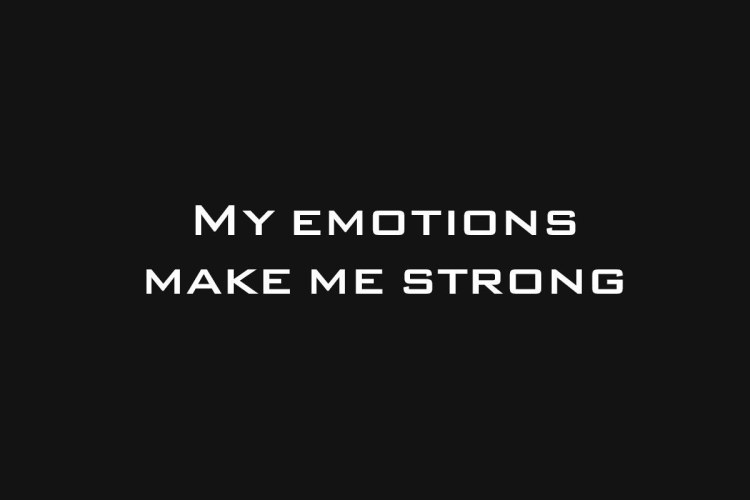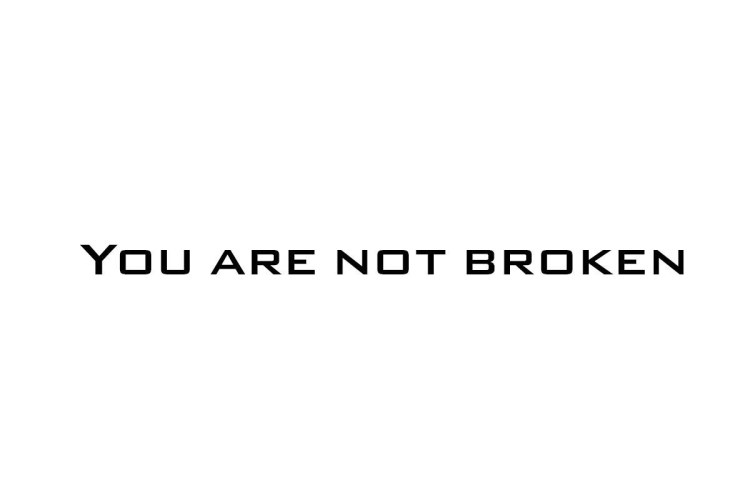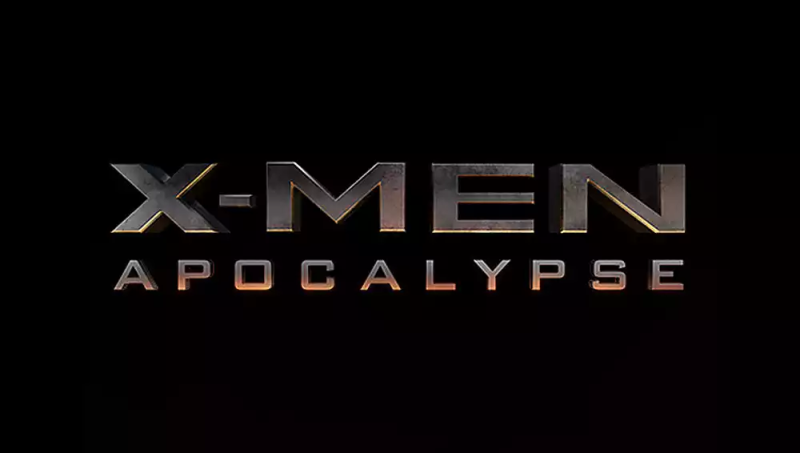
X-Men Font
The X-Men font was explicitly created for the iconic superhero series, and it features a bold and dynamic texture that perfectly captures the world of mutants. The font’s sharp lines and angles showcase power and energy, giving the X-Men characters an extraordinary appearance as superheroes.
Not only is the X-Men font used in posters, but it is also easily merged into different kinds of media, which helps develop a powerful brand for the franchise and completely submerges the audience into the world of mutants and dangers.
The font showcased in the “X-Men: Apocalypse” poster title is Bank Gothic, which is thematic for the film’s plot line. Its robust and harsh-looking design accentuates the imminent big battles and life-threatening incidents, a distinctive feature of the X-Men universe. The bold lettering of Bank Gothic becomes the visual beacon that invites spectators into the gripping mutant and superhero world, where every battle breaks a new record.
Furthermore, the constant use of Bank Gothic in all the promotional materials and merchandising highlights its connection to the X-Men Universe. Whether in comics, merchandise or digital platforms, Bank Gothic stamps itself as a unifying symbol, drawing people together worldwide. Its individuality replicates the X-Men logo and reflects the brand’s core values: the spirit of struggle, survival, and the constant search for justice in a world of extraordinary problems.
Where X-Men Font works best
X-Men Font is built for size: event posters, hero headlines and billboard-style layouts.
High contrast display type like X-Men Font reads instantly in thumbnails and motion graphics.
What is X-Men Font good for?